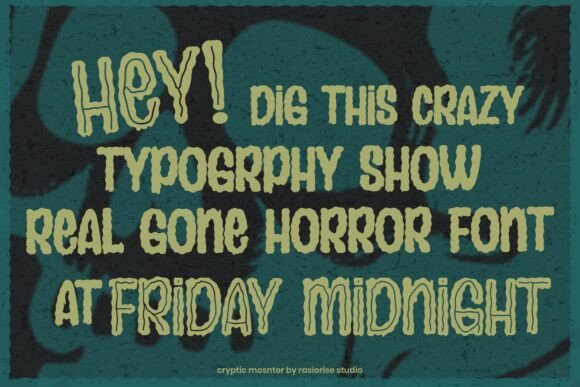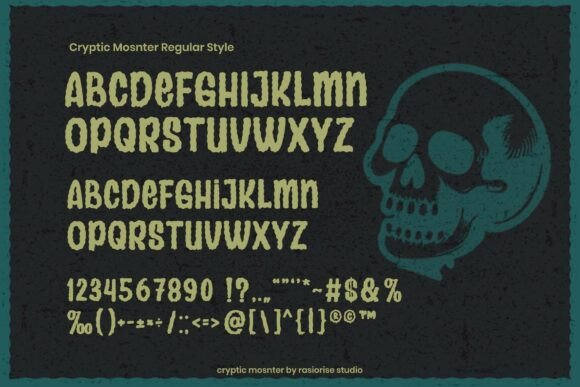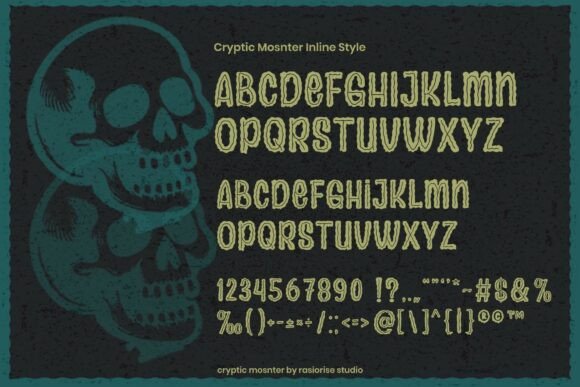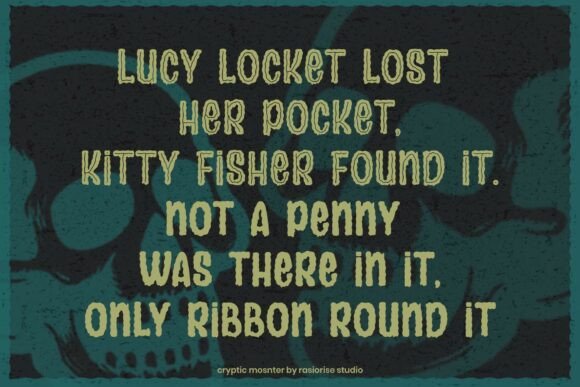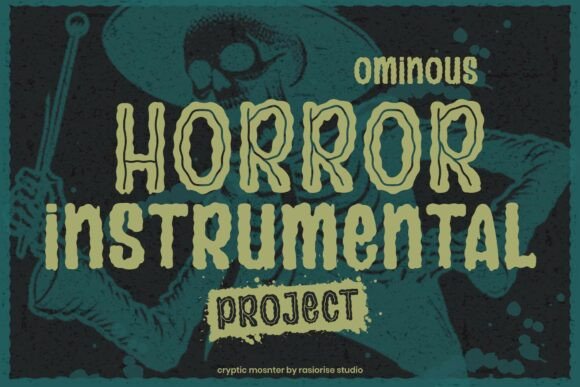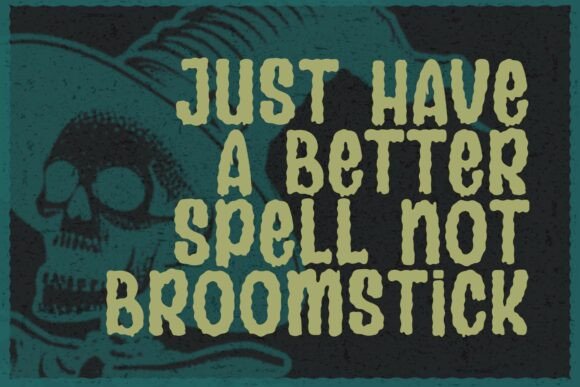
Cryptic Monster Font: Unleash Your Creativity with this Chilling New Typeface
As a designer, have you ever stared blankly at a blank canvas, waiting for inspiration to strike? The moment when the ideas start flowing and your imagination runs wild is a magical one. For those who crave a little bit of horror and a lot of creativity, we’re excited to introduce the Cryptic Monster Font – a Horror Cartoon style font that’s sure to unleash your inner artist.
This bold and playful typeface is inspired by retro and classic horror comic covers, combining elements of hand-drawn and scribble styles. With two variations to choose from – Regular and Inline – you’ll have endless possibilities for your next design project. Whether it’s a book cover, poster, or invitation, the Cryptic Monster Font is the perfect tool to add a touch of whimsy and horror to your work.
Cryptic Monster Font Key Features
- Font Family: Cryptic Monster Font, a unique, hand-drawn, and distressed font
- Character Count: 300+ glyphs, including uppercase and lowercase letters, numbers, and punctuation
- Unique Characteristics: Distressed texture, hand-drawn feel, and subtle irregularities for a mysterious and cryptic look
Cryptic Monster Font Review
Overall, I’m quite impressed with the Cryptic Monster Font. It’s a unique, hand-drawn font that’s perfect for adding a touch of whimsy to your designs. ✨ The font’s irregular lines and shapes give it a playful, organic feel that’s hard to replicate with more traditional fonts.
- The font’s character set is quite extensive, covering a wide range of languages.
- The font is highly customizable, allowing you to adjust the spacing, size, and color to suit your design needs.
- The font’s irregularity makes it stand out in a crowd, adding a touch of personality to any design.
However, there are a few limitations to be aware of. ⚠️ The font’s irregularity can also make it difficult to read, especially in large blocks of text. Additionally, the font may not be suitable for designs that require a high level of precision or consistency.
Overall, I’d highly recommend the Cryptic Monster Font for designers looking to add a touch of personality to their designs. It’s a great choice for projects that require a playful, hand-drawn feel, and its customizability makes it a versatile option for a wide range of design needs.
Some popular use cases for Cryptic Monster Font include:
1. Horror movie posters and promotional materials.
2. Video game title cards and menus.
3. Dark fantasy book covers and promotional materials.
Remember to experiment with different font sizes, colors, and styles to get the most out of Cryptic Monster Font.